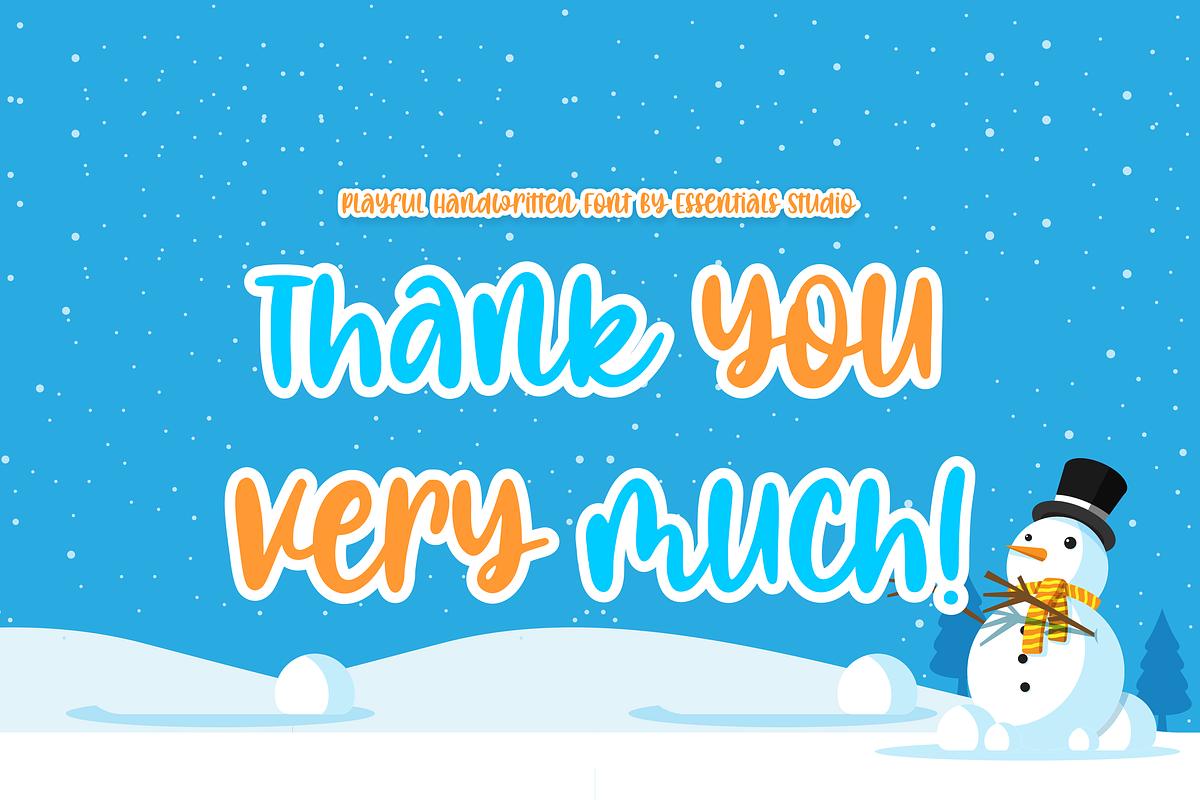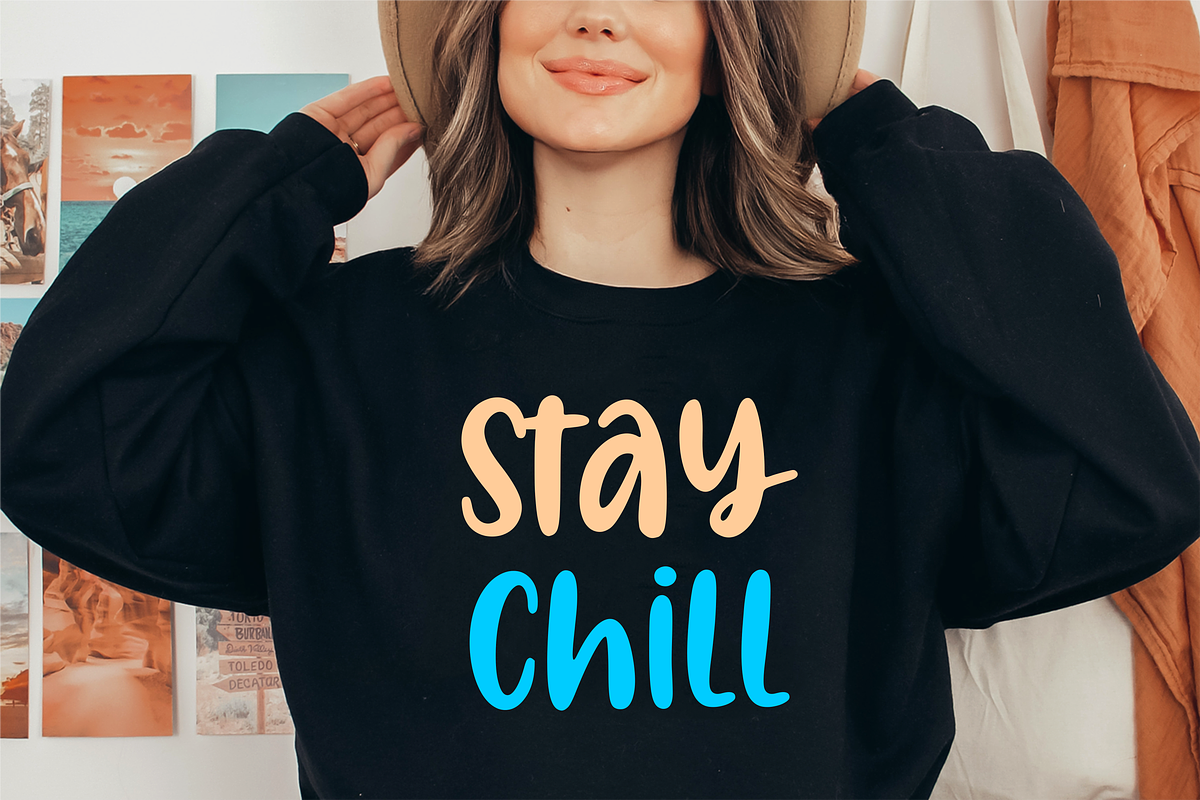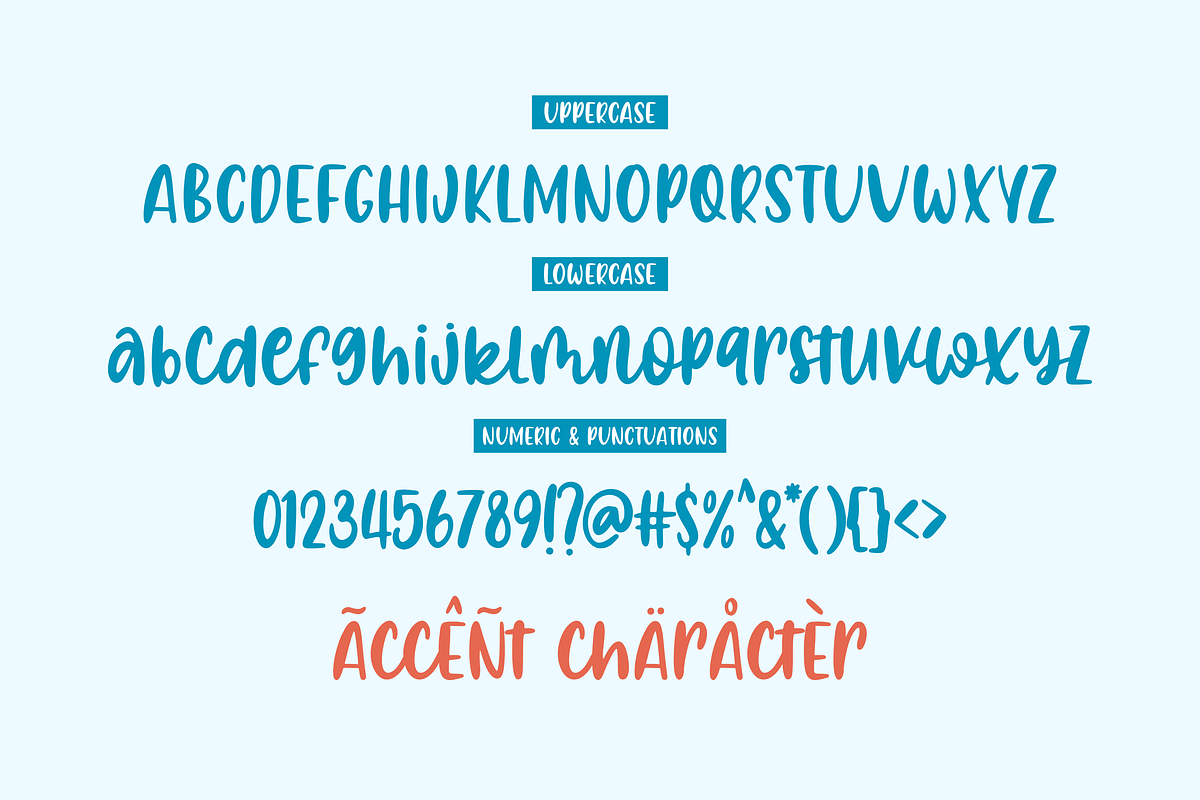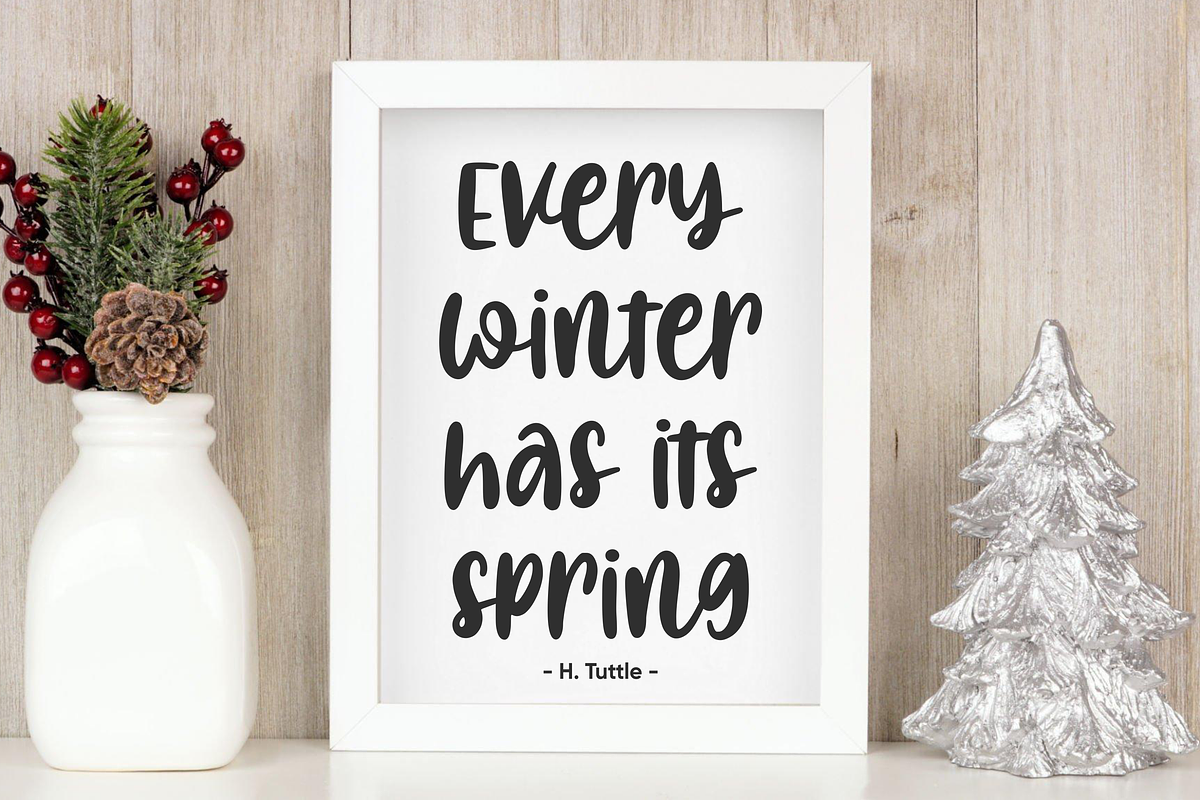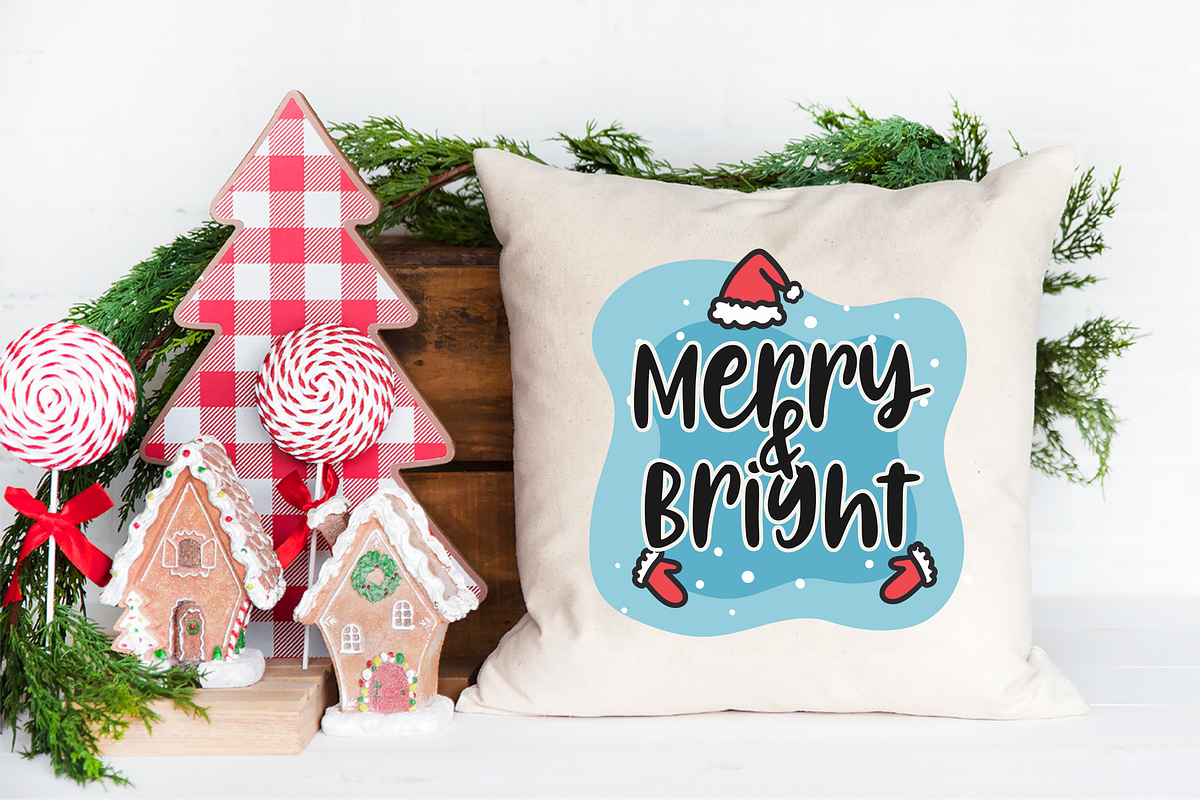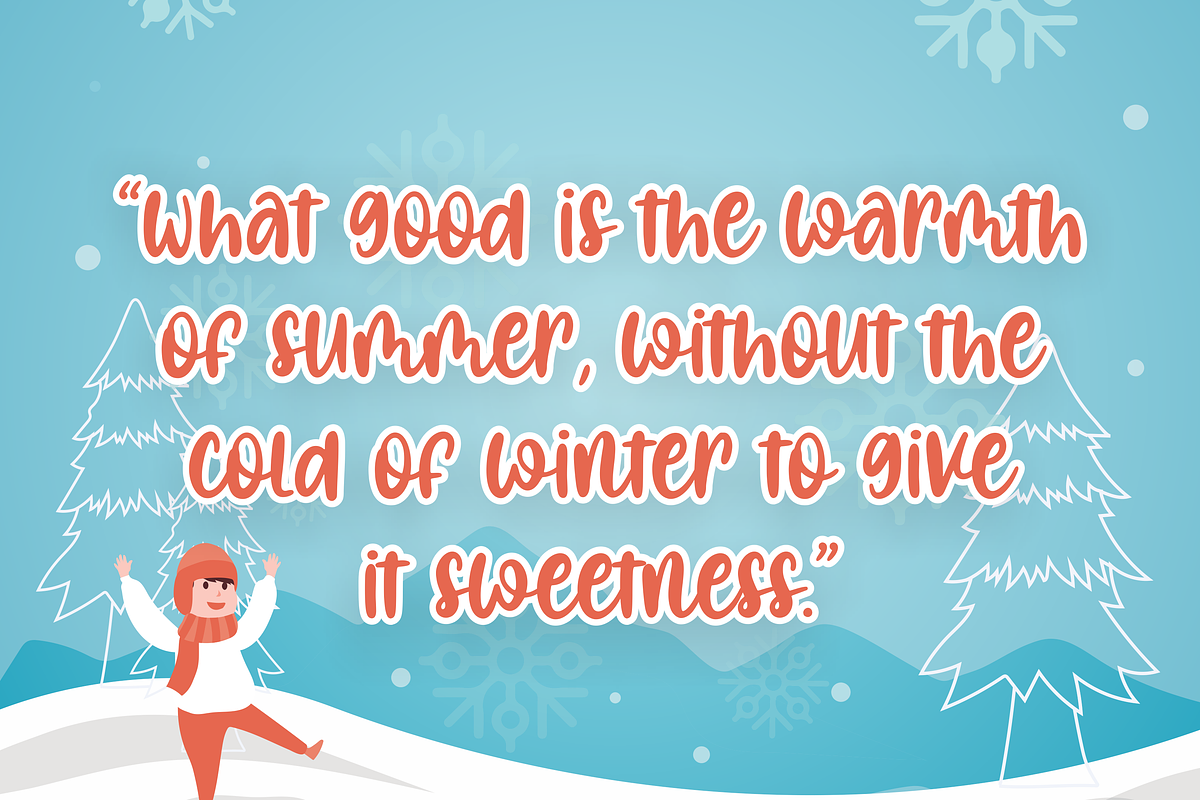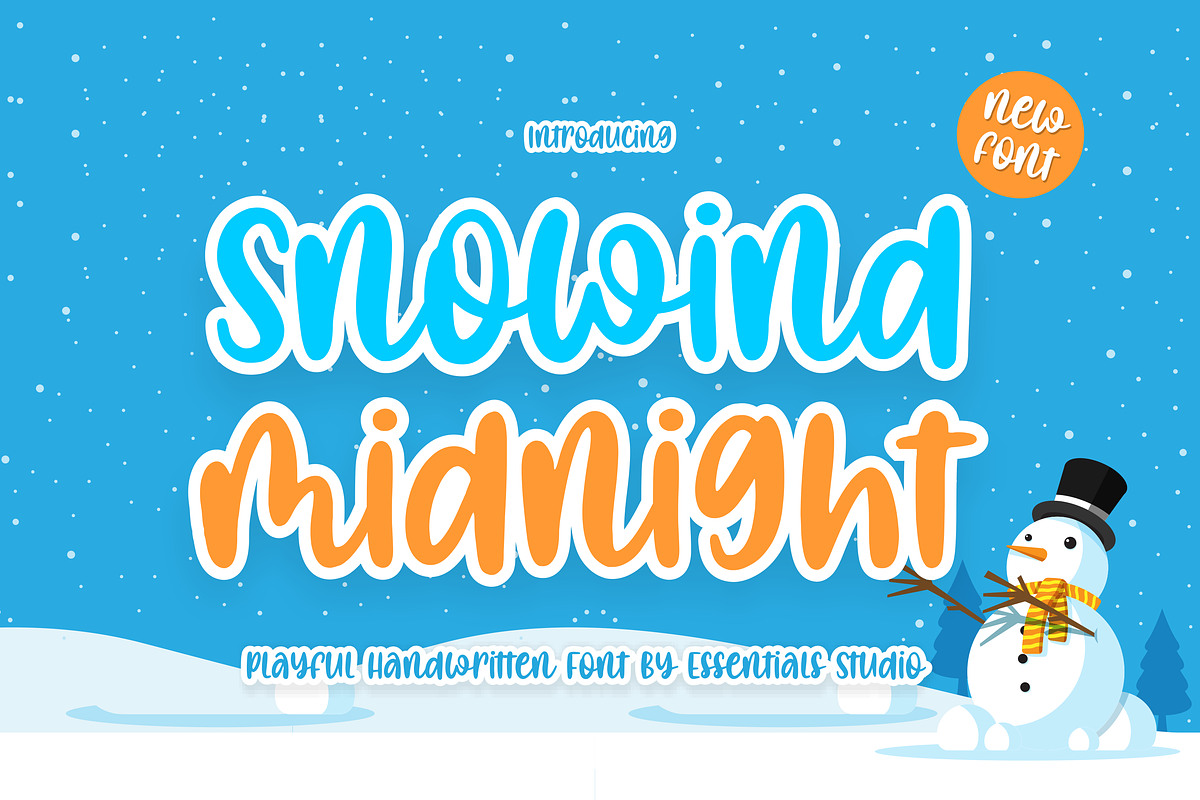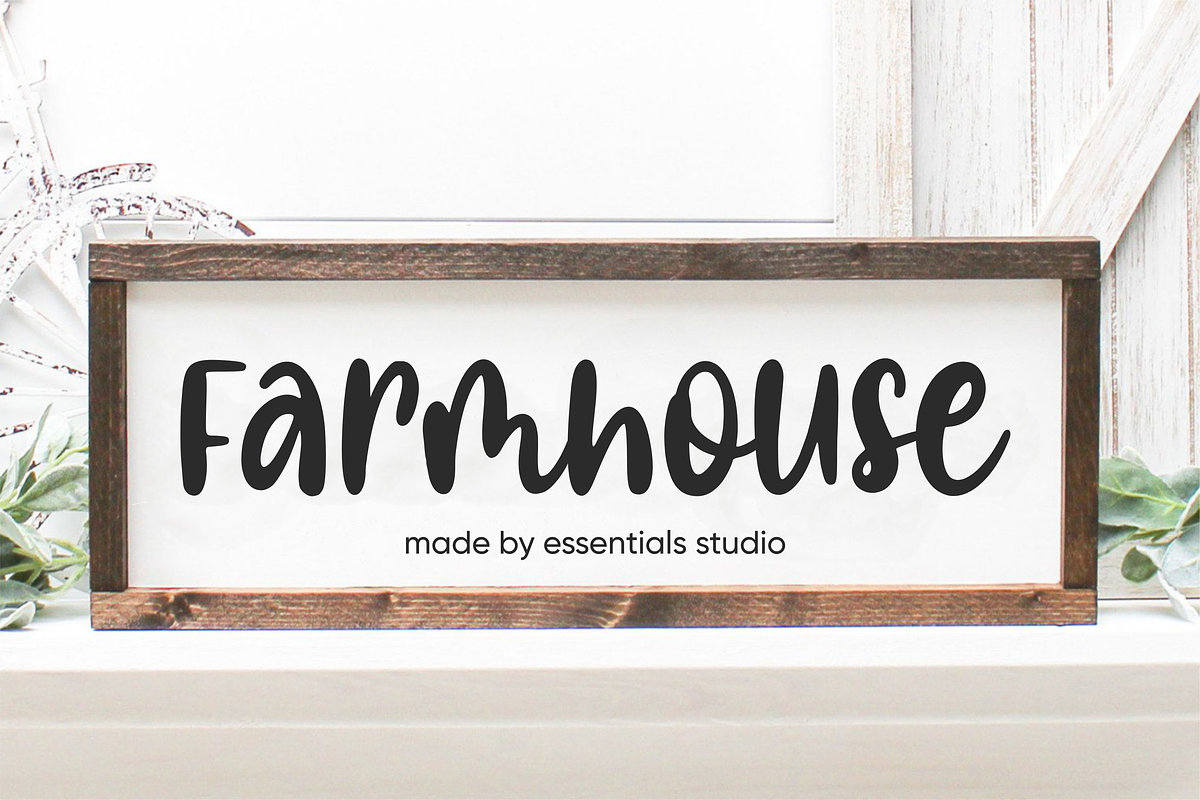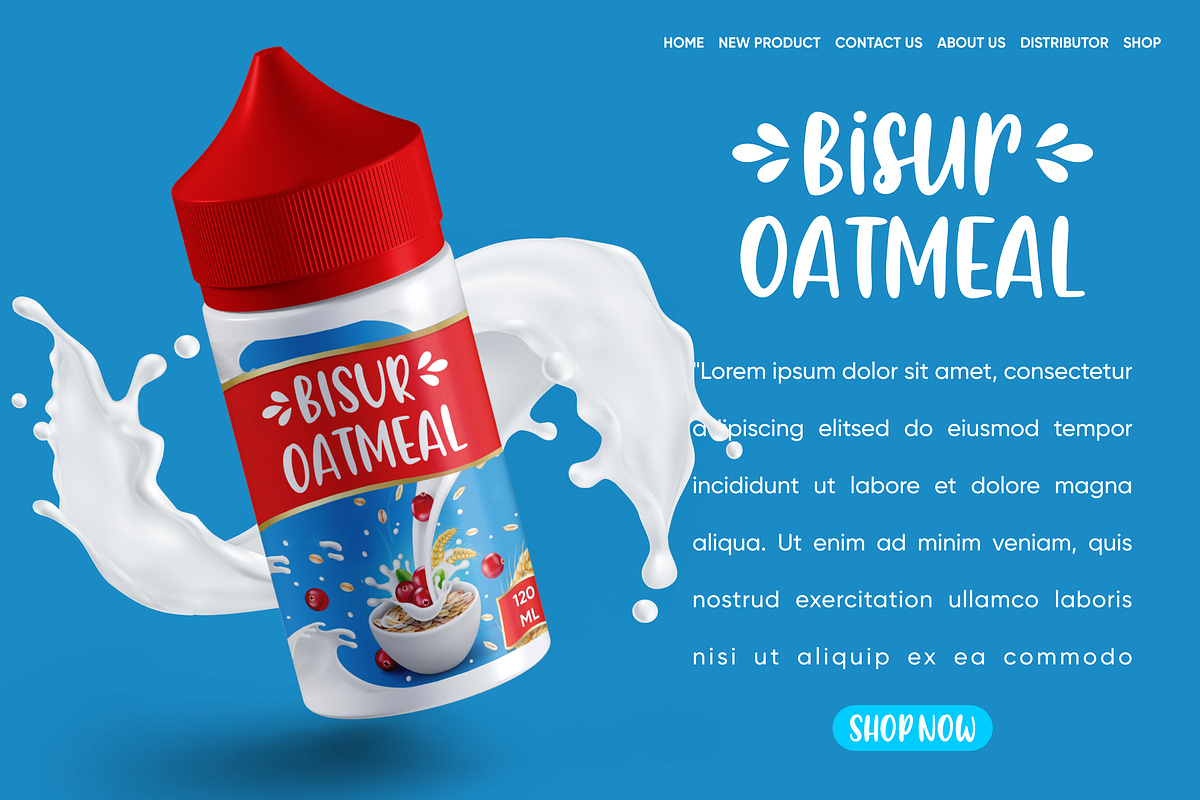
Snowind Midnight
Proudly Present, Snowind Midnigh
Snowind Midnight Is a A Playful Handwritten Font
Snowind Midnight is perfect for product packaging, branding project, megazine, social media, wedding, or just used to express words above the background.